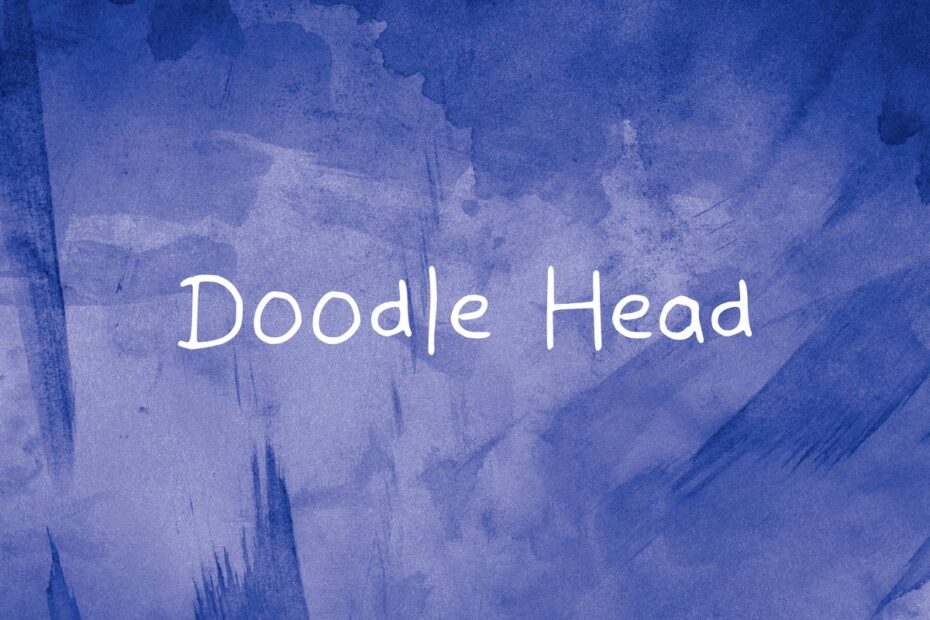
Unleash Your Creativity with Doodle Head Font
Who hasn’t experienced that moment when a spark of creativity hits, and the ideas just start flowing? You grab your favorite pen, and the words begin to pour onto the page. The scribbles and doodles take shape, and suddenly, a beautiful piece of art is born. That’s the magic of Doodle Head Font – a simple yet captivating sans serif handwritten font that captures the essence of those creative moments.
Designed to be easy to read and tidy, yet fun and playful, Doodle Head Font is perfect for adding a personal touch to your designs. Whether you’re a graphic designer, illustrator, or simply a creative enthusiast, this font is an invaluable addition to your toolkit. With its basic punctuation included, you can express yourself freely without worrying about the technicalities. Doodle Head Font is a game-changer for designers who want to add a touch of whimsy and personality to their work.
Doodle Head Font Key Features
- Font Family: Doodle Head is a sans-serif font with a playful, hand-drawn feel.
- Unique Characteristics: Doodle Head features a distinctive, hand-drawn aesthetic with subtle imperfections and variations in line width, giving it a unique and engaging feel.
Doodle Head Font Review
I recently had the chance to work with the “Doodle Head Font” and I have to say, it’s been an interesting experience. Overall, I think this font has some great qualities that make it perfect for certain projects, but it’s not without its limitations.
- Unique, playful feel: The Doodle Head Font has a quirky, hand-drawn look that’s perfect for projects that need a bit of whimsy.
- Highly customizable: The font comes with a wide range of styles and weights, making it easy to tailor to your specific needs.
- Fun and creative: The Doodle Head Font is great for projects that need a bit of personality and flair.
- Lack of clarity at small sizes: Unfortunately, the Doodle Head Font can become quite blurry and difficult to read when used at smaller sizes.
- Not ideal for body text: While the font is great for headings and titles, it’s not the best choice for large blocks of body text.
- May not be suitable for formal projects: The Doodle Head Font’s playful, hand-drawn look may not be suitable for more formal or professional projects.
Overall, I think the Doodle Head Font is a great choice for projects that need a bit of personality and flair. However, it’s not the best choice for every project, and it’s worth considering the limitations before deciding to use it.
The Doodle Head Font is ideal for creating playful, hand-drawn designs. Use it for: